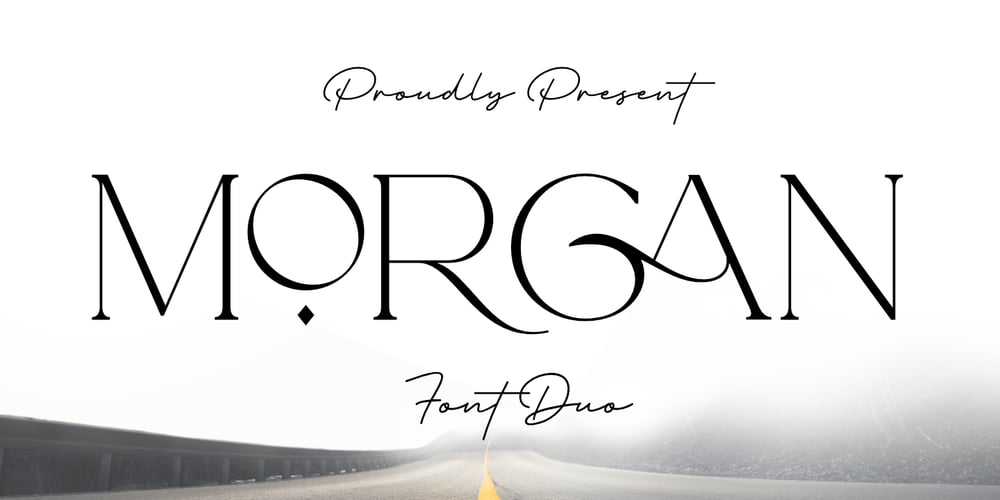
Morgan Font Duo
Morgan Font Duo font
Morgan Font Duo Font Family was designed by David Kasidi and published by Silverdav. Morgan Font Duo contains 2 styles and family package options. Introduce “Morgan” is a duo font, consisting of Serif and Script fonts, a very fitting combination, of course making your design more elegant and very charmingMorgan was created to fulfill your need to create a charming and cool design.Equipped with many unique ligatures in serif fonts that will make your designs different from other designs, and also equipped with many Alternates in Script Fonts that will add a luxurious impression to your designs. How to use special characters in serif fonts for the letters “A, I, U, E, O” please select one of the letters above then use the dot 2 times (A..), then you get a special character, and to get a special character on letters K, R & L, use one of the letters above, then add a hyphen (-) once or twice.What’s Includes: Morgan Serif Morgan Script Special Ligatures in Serif Font Special Alternates in Script Font Multilingual Support If you have any questions, please contact us